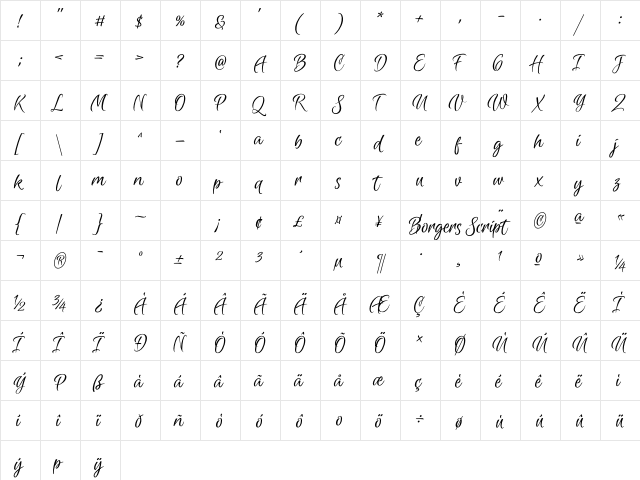
Borgers Script PERSONAL USE Regular Free Font
Borgers Script PERSONAL USE Regular
Foundry: Mans Greback AB
Designer: Mans Greback
Design Context for Borgers Script PERSONAL USE
Borgers Script PERSONAL USE flows with the natural rhythm of handwritten lettering, making it ideal for designs that call for warmth and personal expression.
Font Pairing: Combine Borgers Script PERSONAL USE with a simple geometric sans for maximum contrast - the tension between flowing curves and clean structure is a classic typographic pairing.
Pro Tip: Use Borgers Script PERSONAL USE for short runs of text - names, titles, or taglines. Extended body copy in script faces tires the eye quickly.